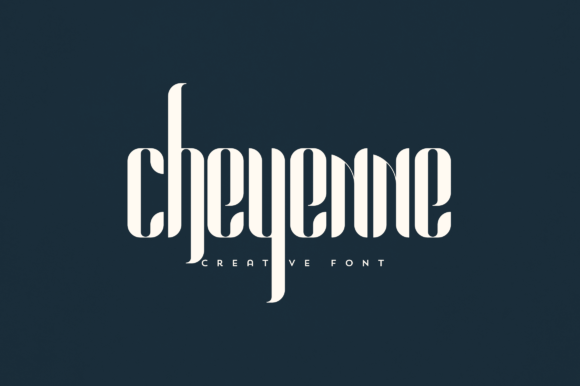
Get ready to experience the captivating world of Cheyenne Font - the ultimate display font that breathes elegance into every design.
With Cheyenne Font, your typography will ascend to new heights of sophistication and allure. Each letter is meticulously crafted to evoke a sense of timeless beauty, ensuring that your message captivates the hearts of your audience.
Step into a realm of endless versatility, where Cheyenne Font weaves its magic across a breathtaking array of projects. From branding that exudes a touch of luxury to home-ware designs that radiate warmth and charm, Cheyenne Font knows no bounds. Picture its delicate curves adorning product packaging, inviting customers to discover the treasures within.
Unleash the power of Cheyenne Font as it transforms magazine headers into works of art, drawing readers into a captivating journey through the pages. Let its graceful lines serve as a stylish text overlay, adding an enchanting touch to any background image.
Cheyenne Font is not just a font; it's an invitation to express your unique style. Its timeless elegance will enhance your branding efforts, leaving an indelible mark on the minds of your customers.
Let Cheyenne Font be your guide as you navigate the ever-evolving digital landscape. Its beauty will resonate with every modern website, ensuring that your online presence commands attention and inspires admiration.
Embrace the magic of Cheyenne Font today and unlock a world of design possibilities. Its versatility and sophistication will empower you to create stunning visuals that capture the essence of your brand and captivate your audience.